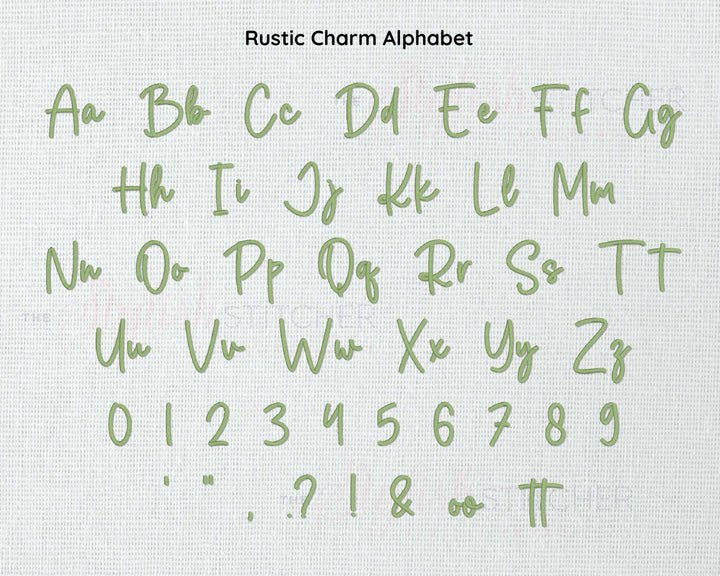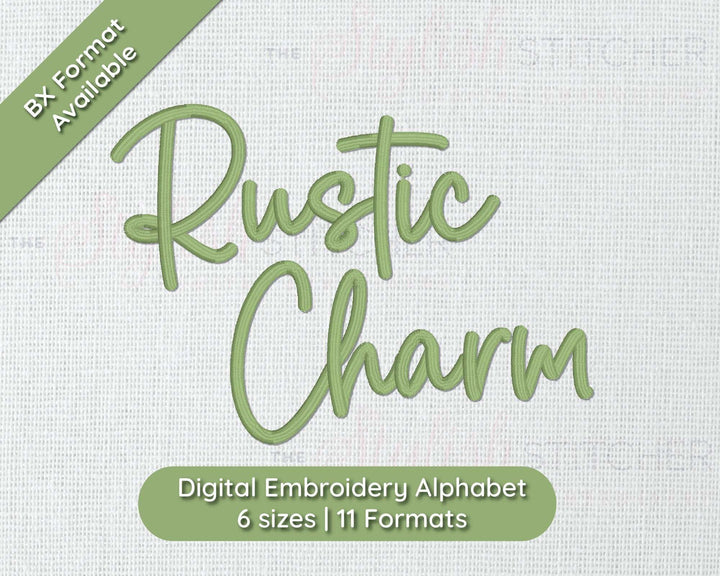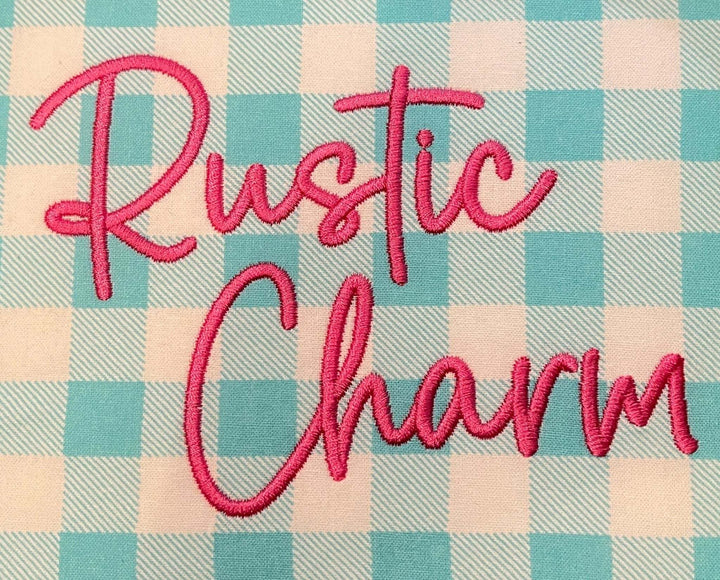
Photograph of Rustic Charm embroidery font
Photograph of Rustic Charm embroidery font alphabet
Photograph of stitched out Rustic Charm embroidery font
Rustic Charm Digital Embroidery Font
Introducing Rustic Charm — the embroidery font that brings a touch of countryside elegance to your projects. With its handcrafted appearance and organic flow, Rustic Charm evokes the warm, inviting feel of a cozy cottage or a serene farmhouse. Whether you're looking to add a personal touch to your craft or aiming for that homespun market chic, Rustic Charm is the perfect font to stitch through your creations.
Included: Uppercase Letters, Lowercase Letters,2 Alternates, 6 Punctuation, Numbers
Stitch Type: Satin Stitch